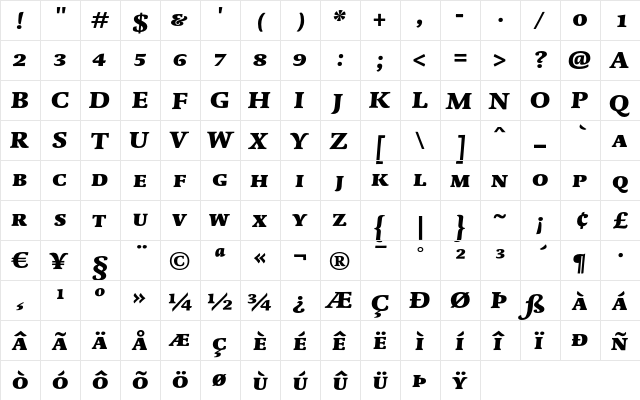
DTL Dorian T Caps Heavy Italic
| Style | T Caps Heavy Italic |
Design Context for DTL Dorian Typeface
DTL Dorian is a composed and adaptable typeface that performs quietly and consistently across a wide range of design contexts. The slanted form adds forward momentum and visual energy.
Pro Tip: Try DTL Dorian for annotation and caption copy alongside an upright companion — the contrast in angle creates a dynamic but ordered typographic system.